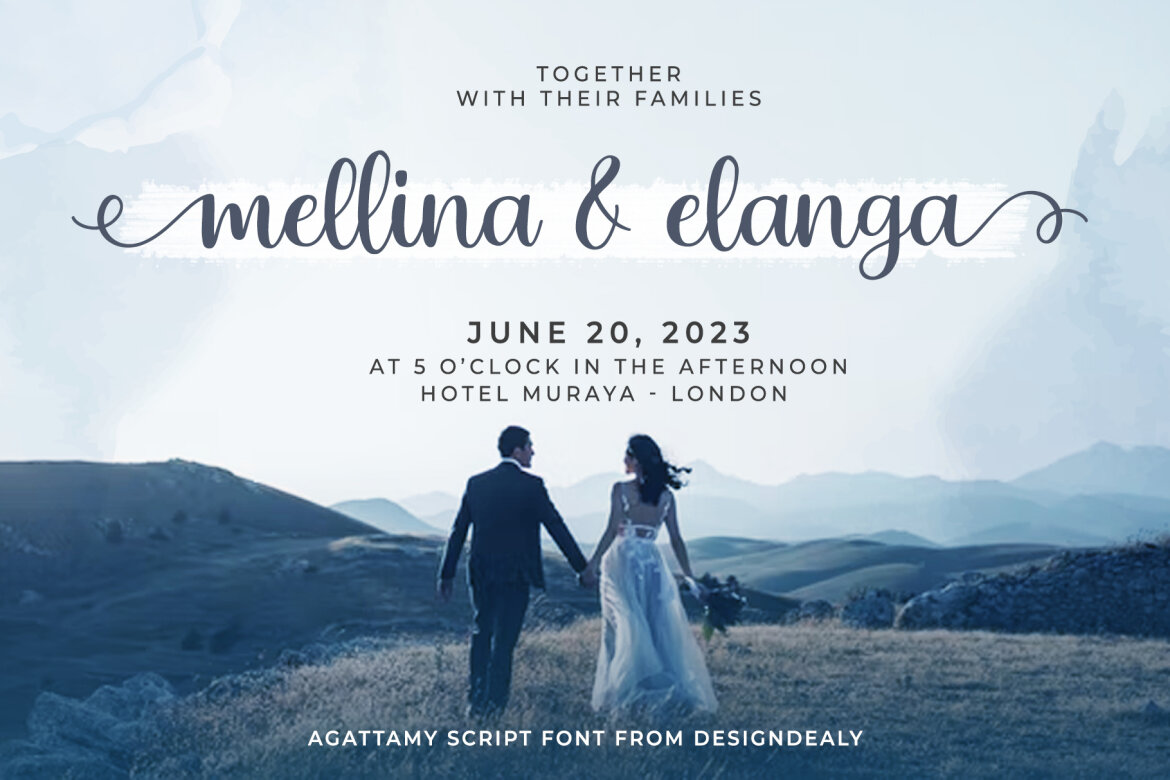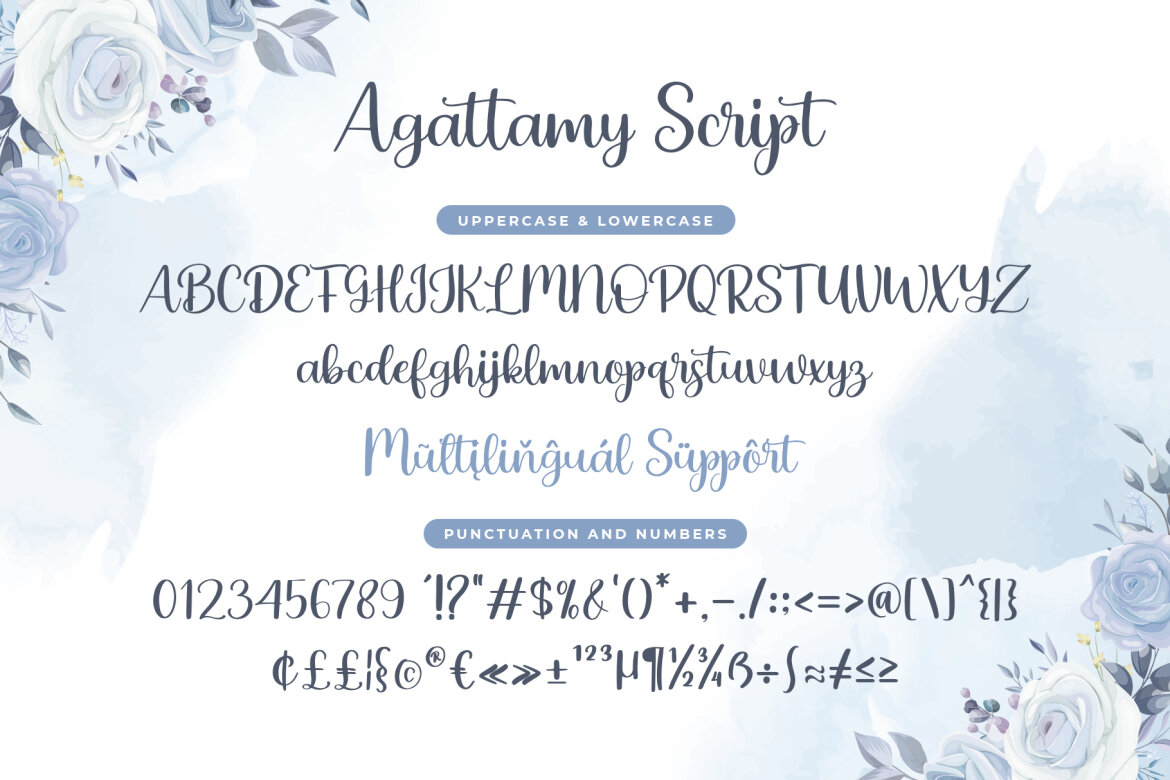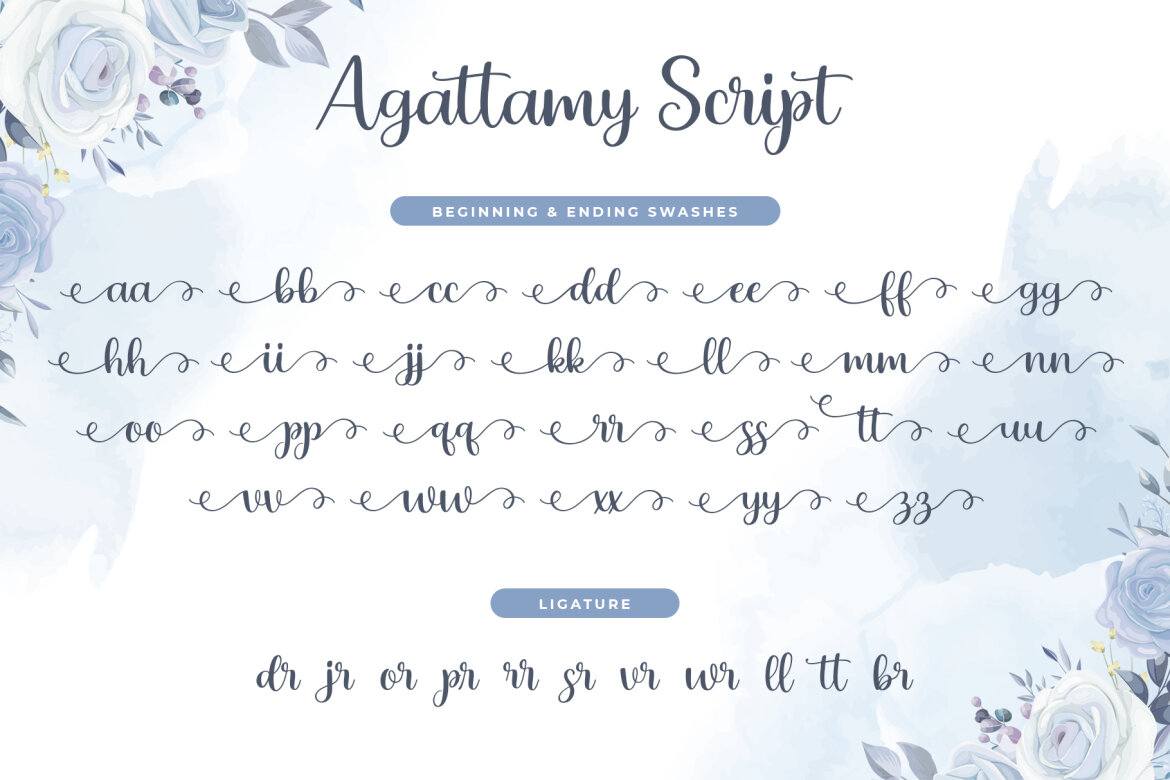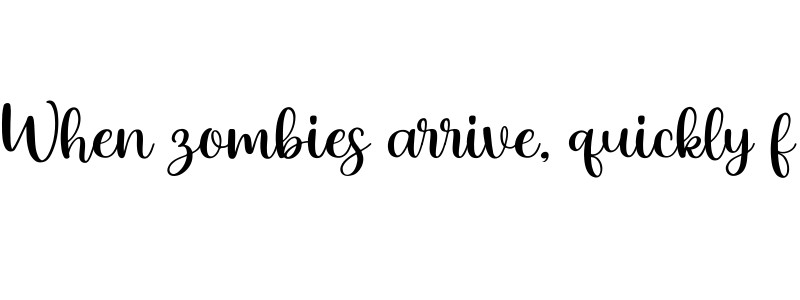
Agattamy FREE Script Font
AgattamyScript
Agattamy Script is a delicate handwritten font masterfully crafted to become a true favorite. Contemporary and fresh, it is perfect for any design you wish to create. Add it to your creative projects and make them outstanding! Visit our website : https://buysvgbundles.com/